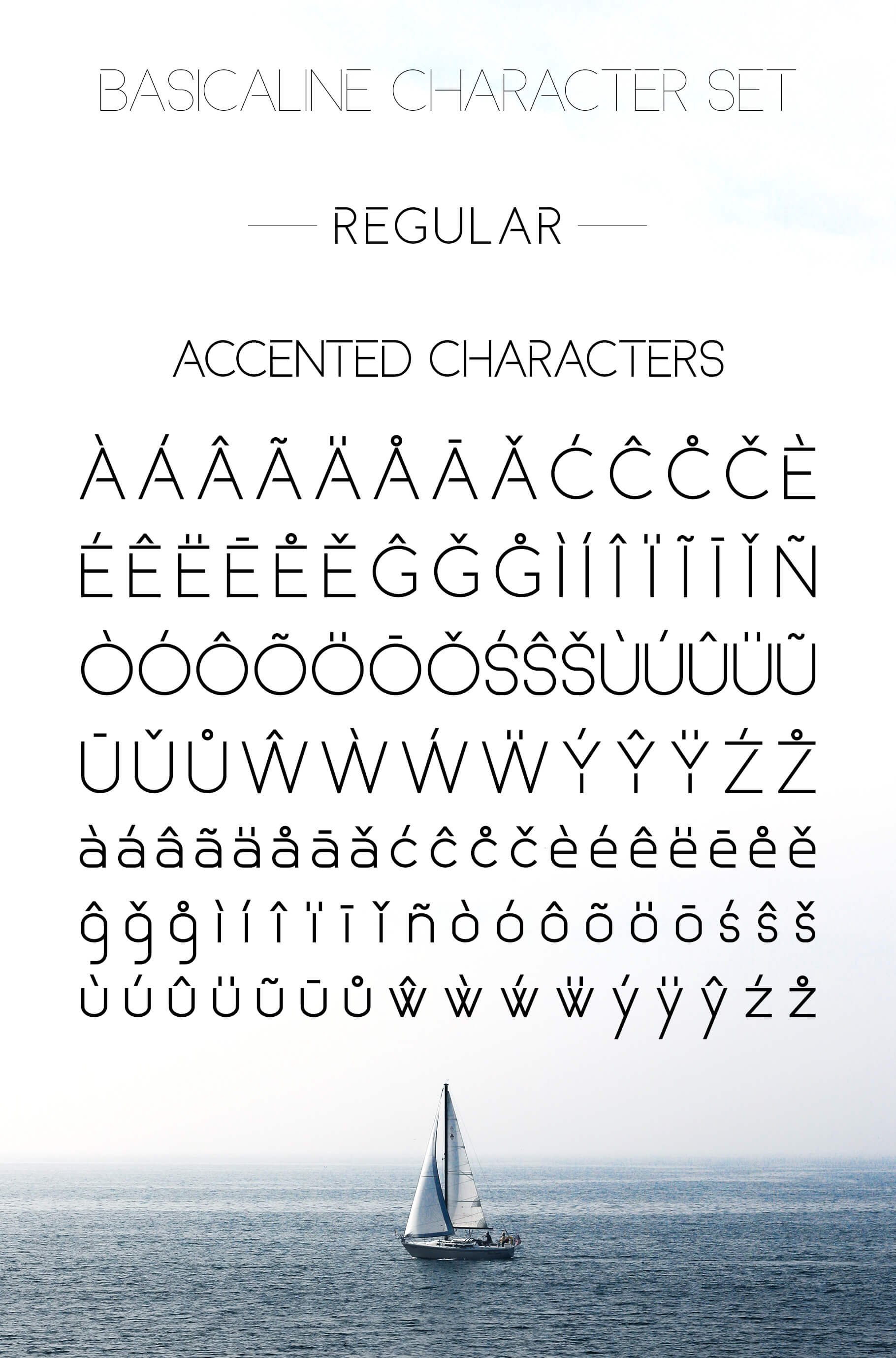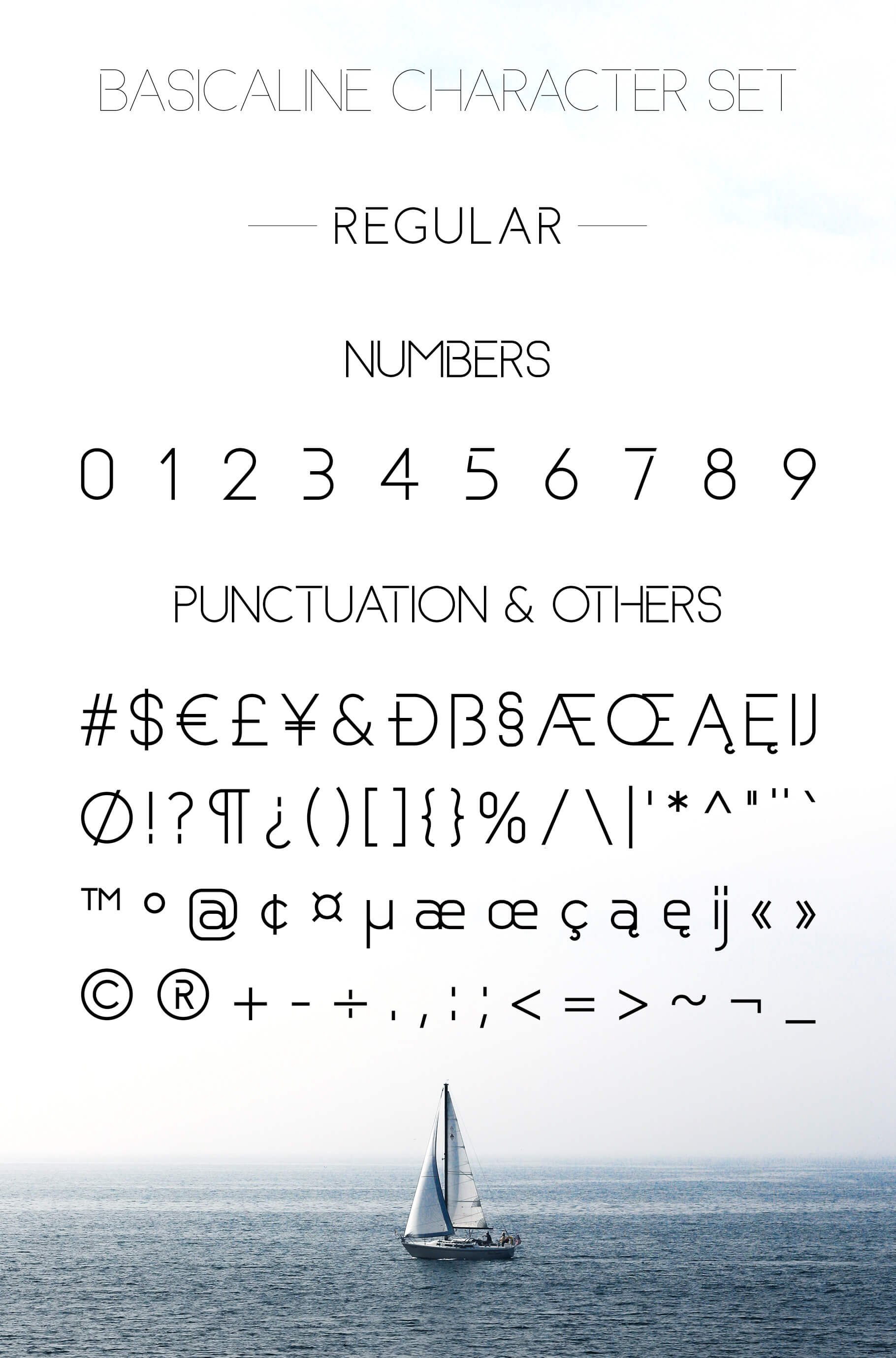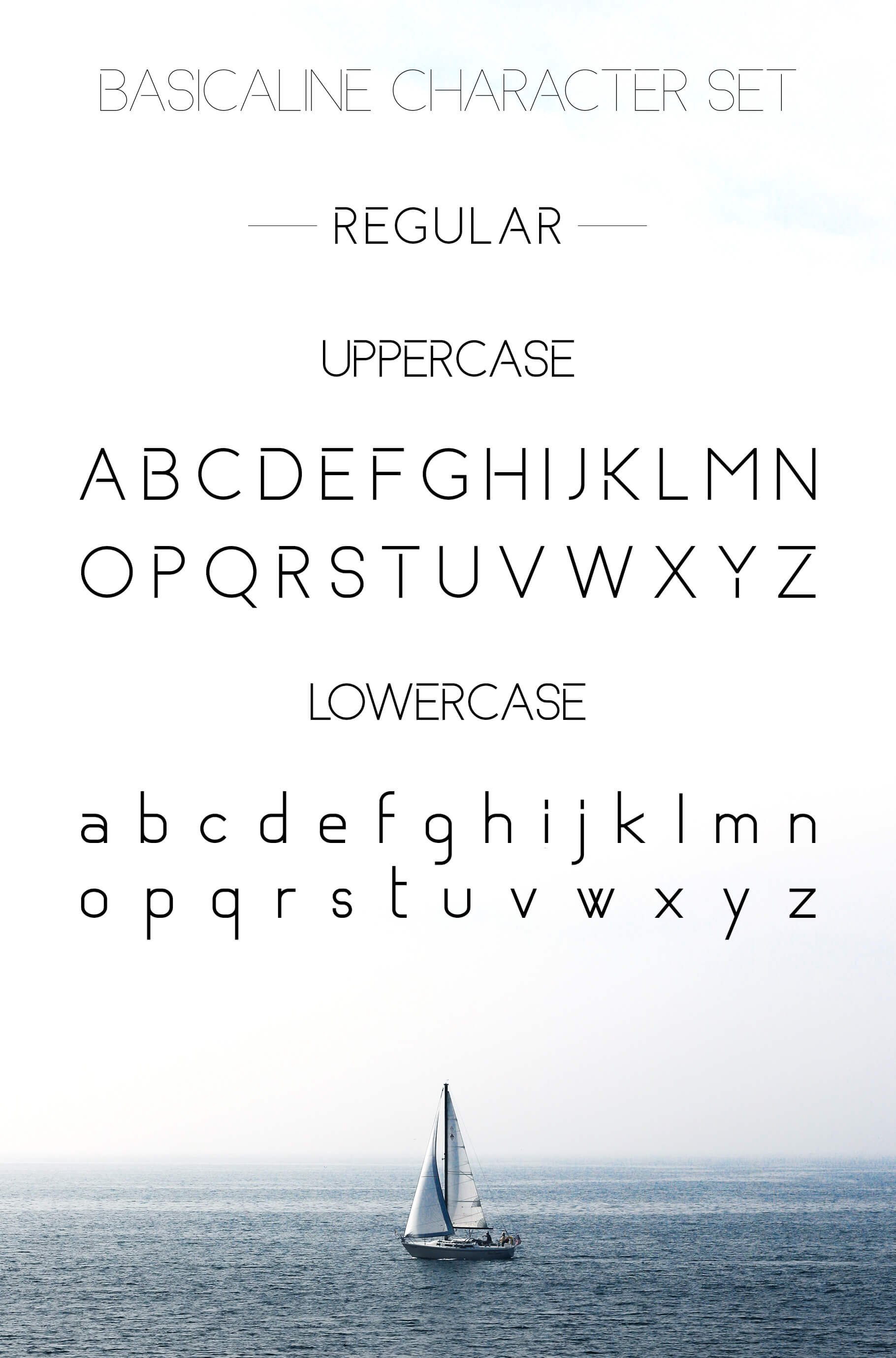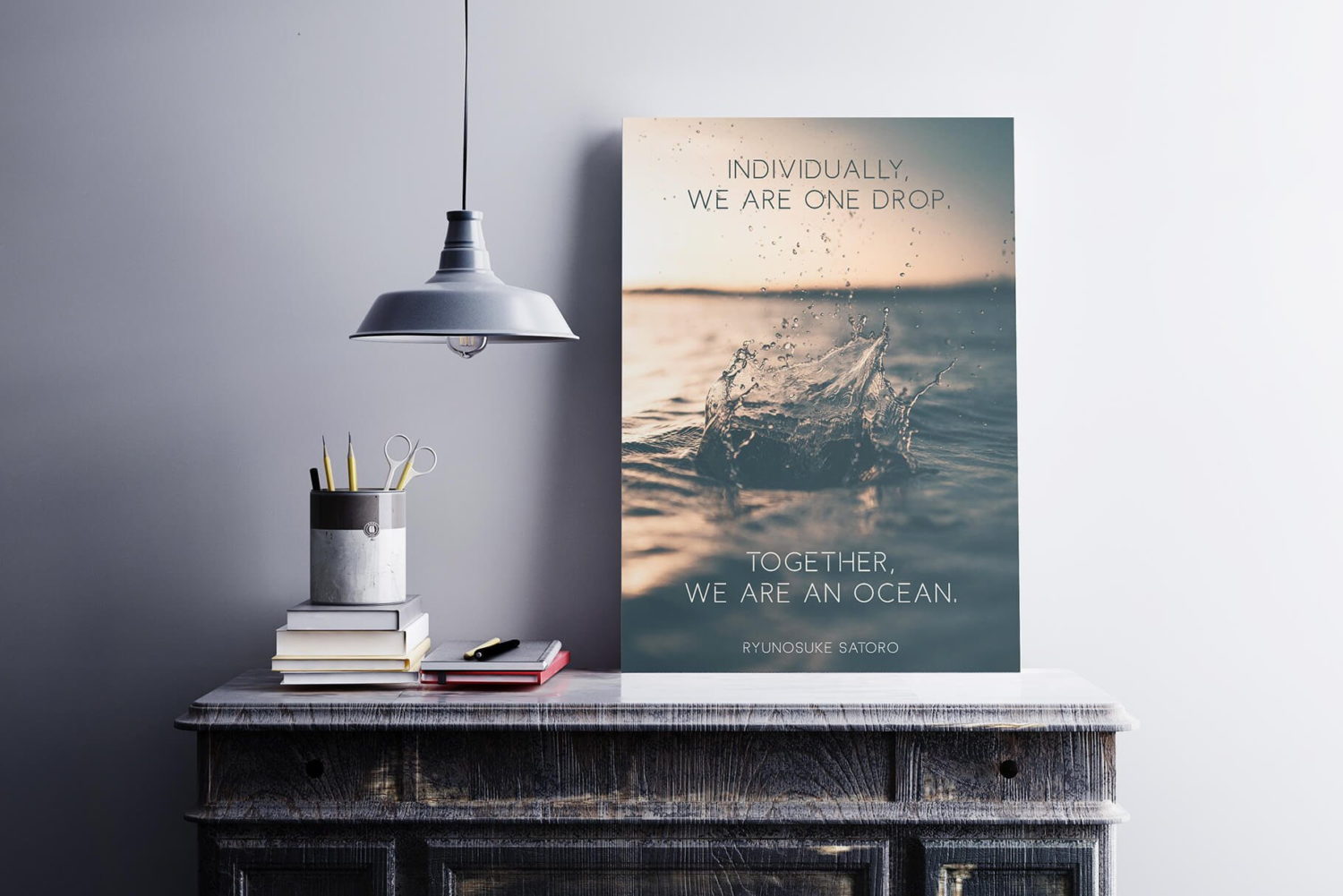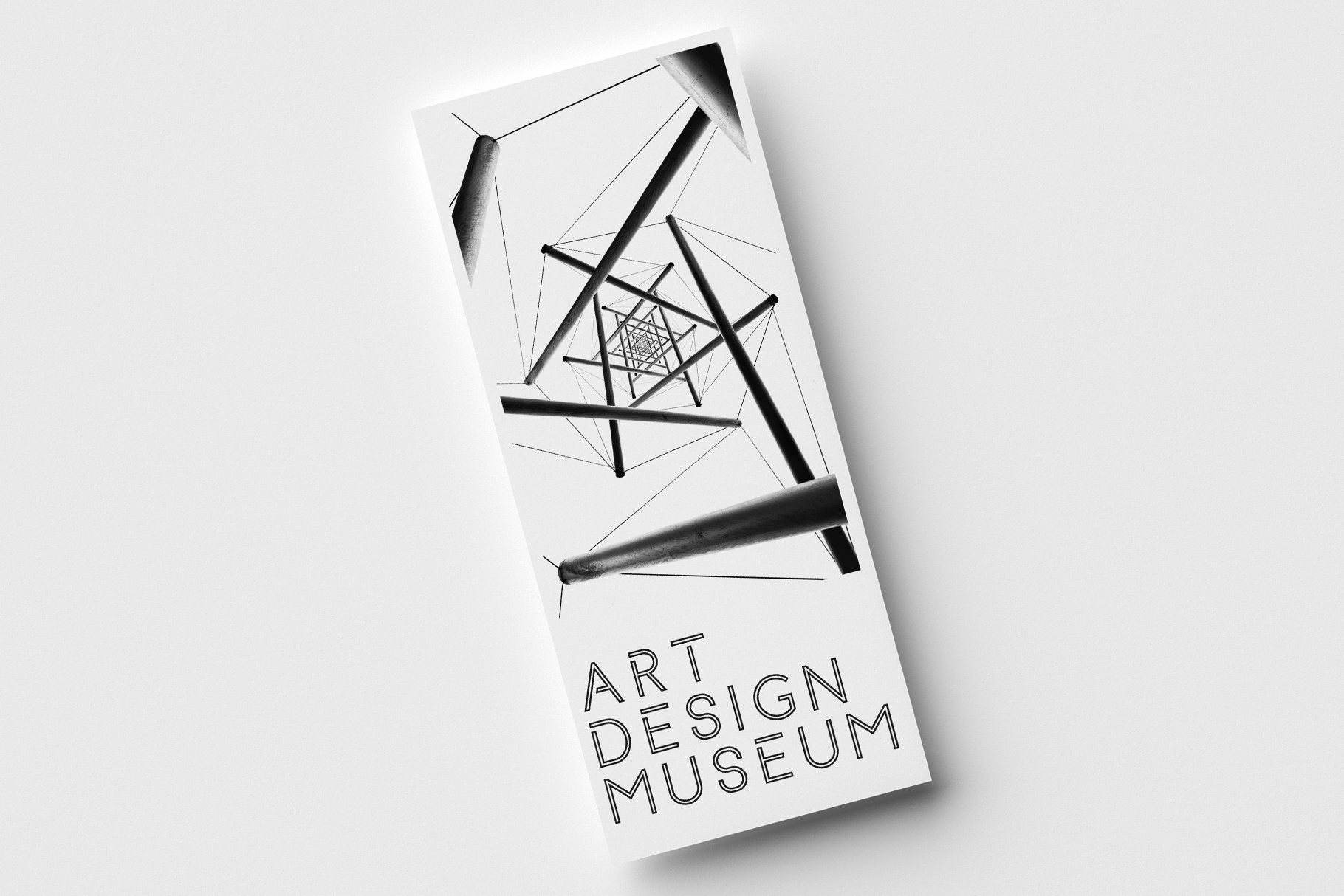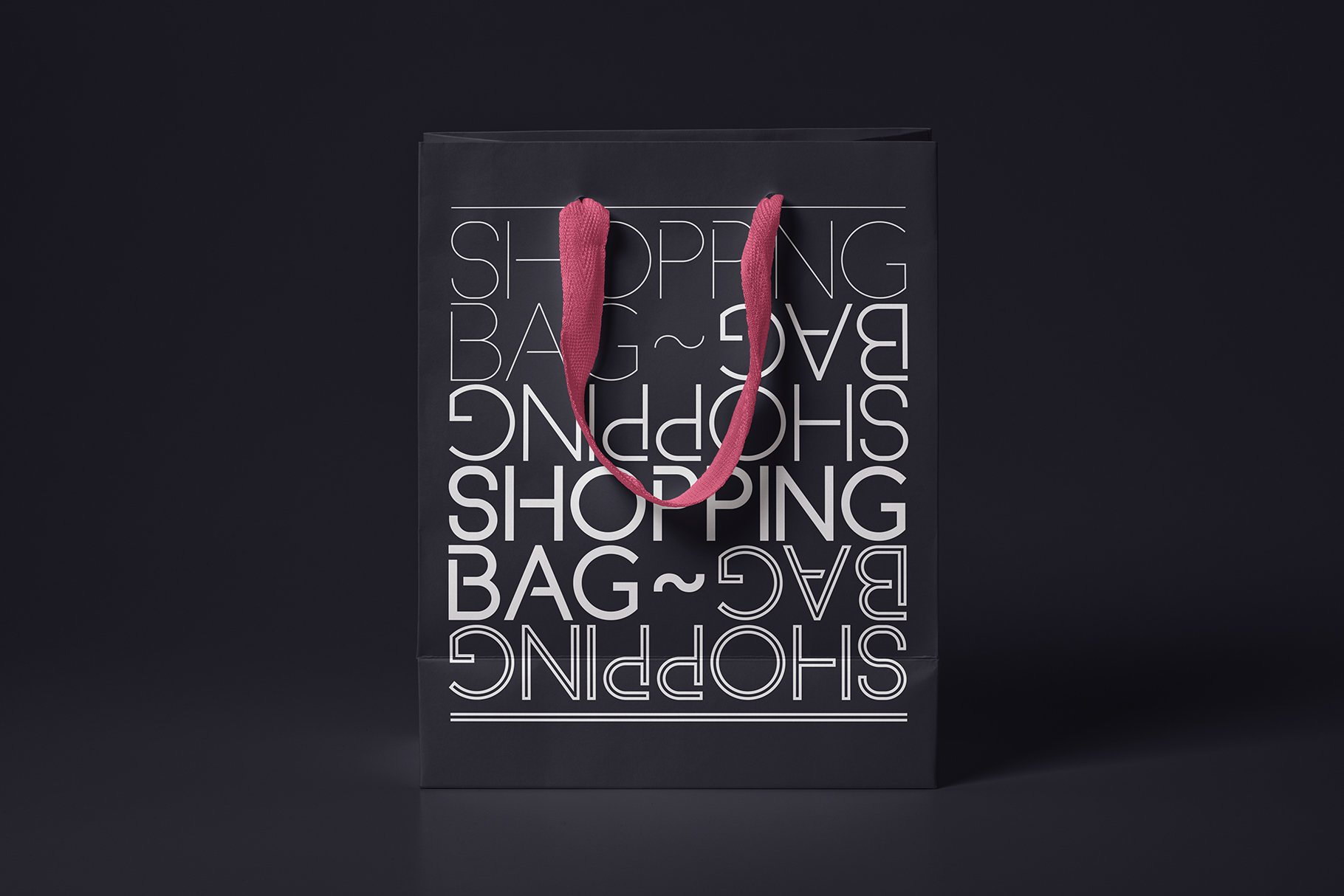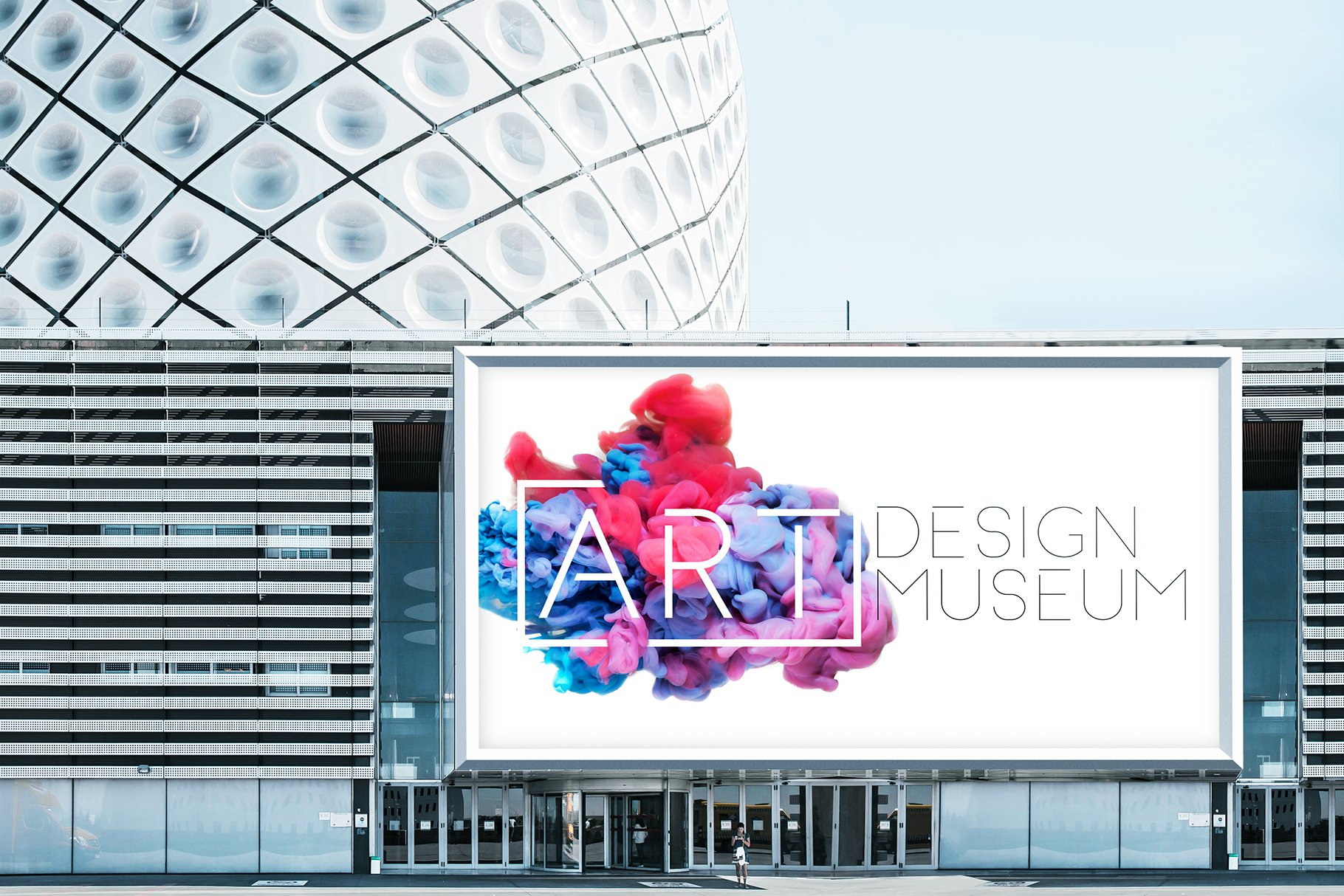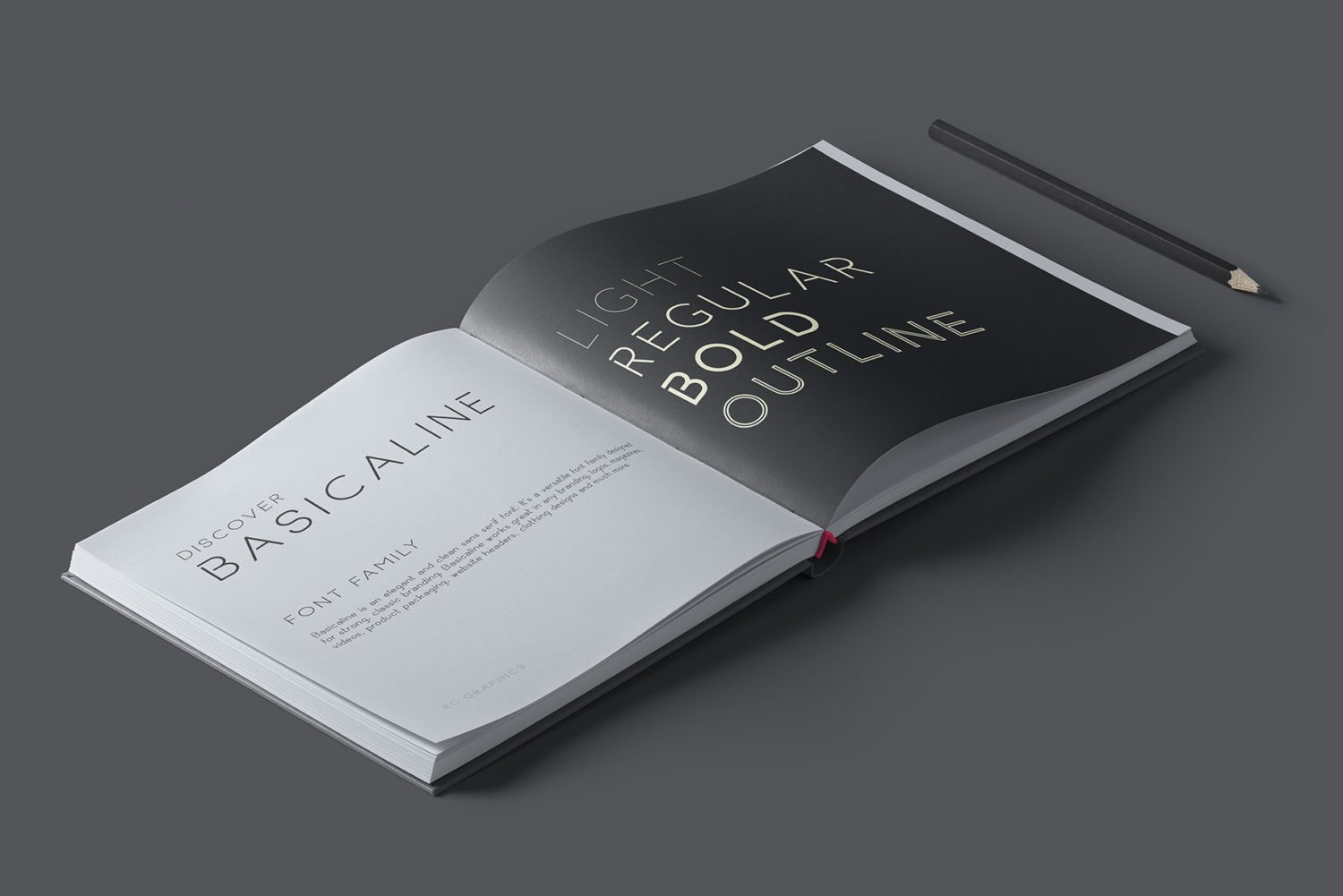
Basicaline is a sleek, modern sans serif font characterized by its thin, clean lines and slightly condensed letterforms. Its minimalist style with geometric touches and subtle stroke variations gives it a refined yet approachable look, making it ideal for contemporary branding, editorial headlines, and digital interfaces seeking a clear and sophisticated appearance. This font’s elegance and readability work well in both creative and professional contexts where a fresh, understated aesthetic is desired.
Basicaline Font
About Basicaline Font
| Font family | Basicaline Font |
| Release date | 2018-08-31 |
| Designer | Robin Campistron |